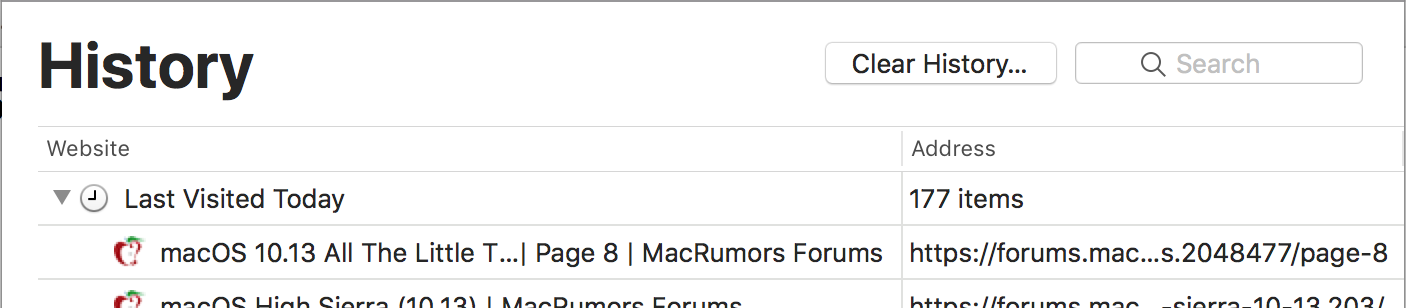
Not to add to all the complaining but this really bothers me...
Every single app now has an insanely massive title about what app you're using... How does a company that understands the visual hierarchy of importance screw something up so massively. My eyes are drawn to this massive title constantly, and it's everywhere.
This is seriously disturbing D: I hope the new OSX isn't like this.
It's like deja-vu as all the folks installing today complain about the same things we complained about months ago when the beta period started.
Yeah, the big bold titles are unnecessary. I'm still not sure what Apple was thinking. Them's the breaks though.
I noticed. Clear where Apple's initial inspiration came from:
I hope the new OSX isn't like this.
Present in a few places, but not as many as iOS.
Apparently the headers are large to accommodate the iPhone X's sensor notch.
Yeah I logged in JUST to complain about this. I feel like my Dad with the font on XXlarge. Why do I need a giant "Messages" in messages. I know its ****ing messages I clicked on it!!!
It seems like a small thing but it takes up half the screen. I think Apple lost it with this one.
Are you actually using Messages, or just admiring it? Messages opens to the last message thread open and the title scrolls into the bar if you scroll at all in the recipient list.
I hate it when Apple does stuff that isn't better. Should have been clear during the beta that the font was bothersome but they stuck to their guns.
Are you actually using Messages, or just admiring it? Messages opens to the last message thread open and the title scrolls into the bar if you scroll at all in the recipient list.
I know its not a huge deal. But Apple usually get the usability and design right on these things. Its distracting to me now sure why.
What is the point on the huge Font there? It doesnt improve anything and takes away from screen real estate.
Yet the icons on the dock have no text showing what they are. Good thing it shows Messages in large font when I open the messages app since I have that icon on my doc. I wouldn’t know what app I’m in without. /s
Headings for different sections of an app is one thing (Music: library, playlists, artists, etc.) But Having it for just the sake of it like in Messages is unnecessary. Neither heading case needs the large obnoxious font.
Tim and Jonathan's eyesight isn't what it once was, clearly. They should go in for new prescriptions.
That said, there's all sorts of visual missteps being found in the iOS -